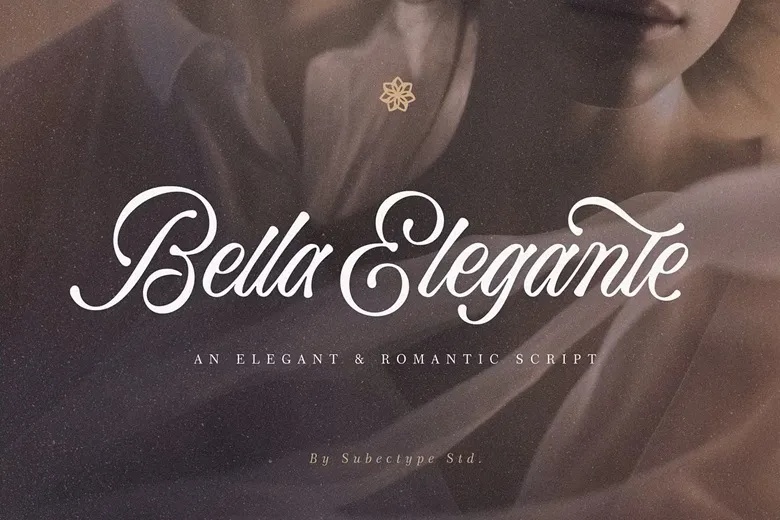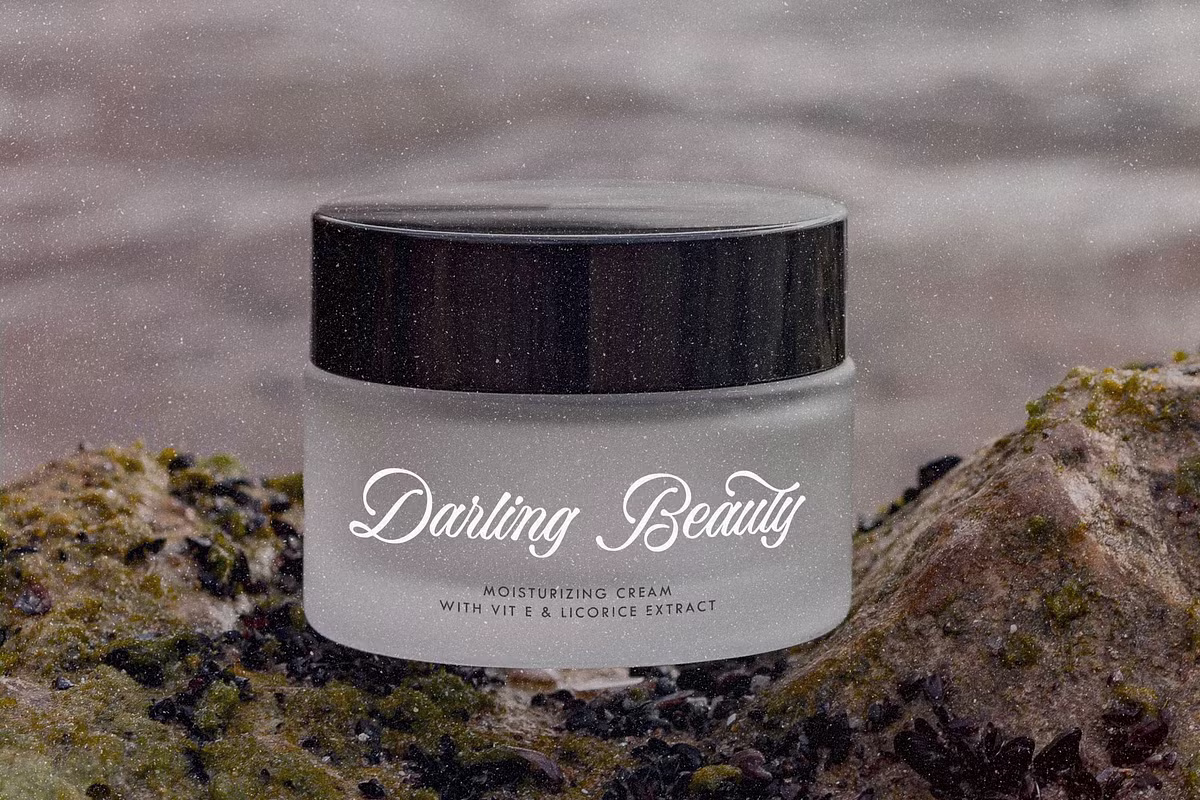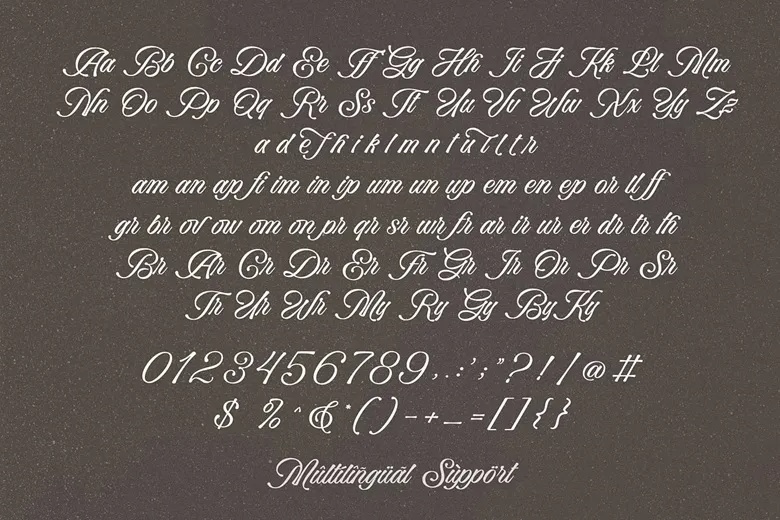
Bella Elegante Font
Bella Elegante is a modern and elegant calligraphy script typeface, beautifully crafted by Love Touch. It is specifically designed for wedding parties, invitations, signature branding, and any project that calls for a touch of graceful calligraphy. With its unique and classic character, Bella Elegante brings fantastic inspiration to life—perfect even for creating gorgeous fashion designs.
Bella Elegante Calligraphy Script Font